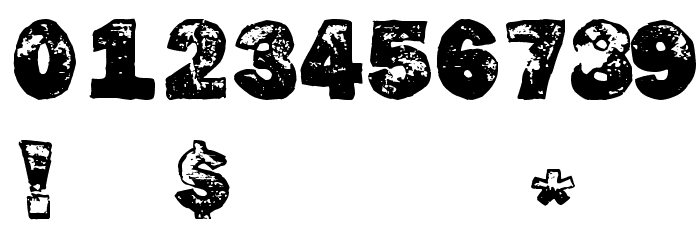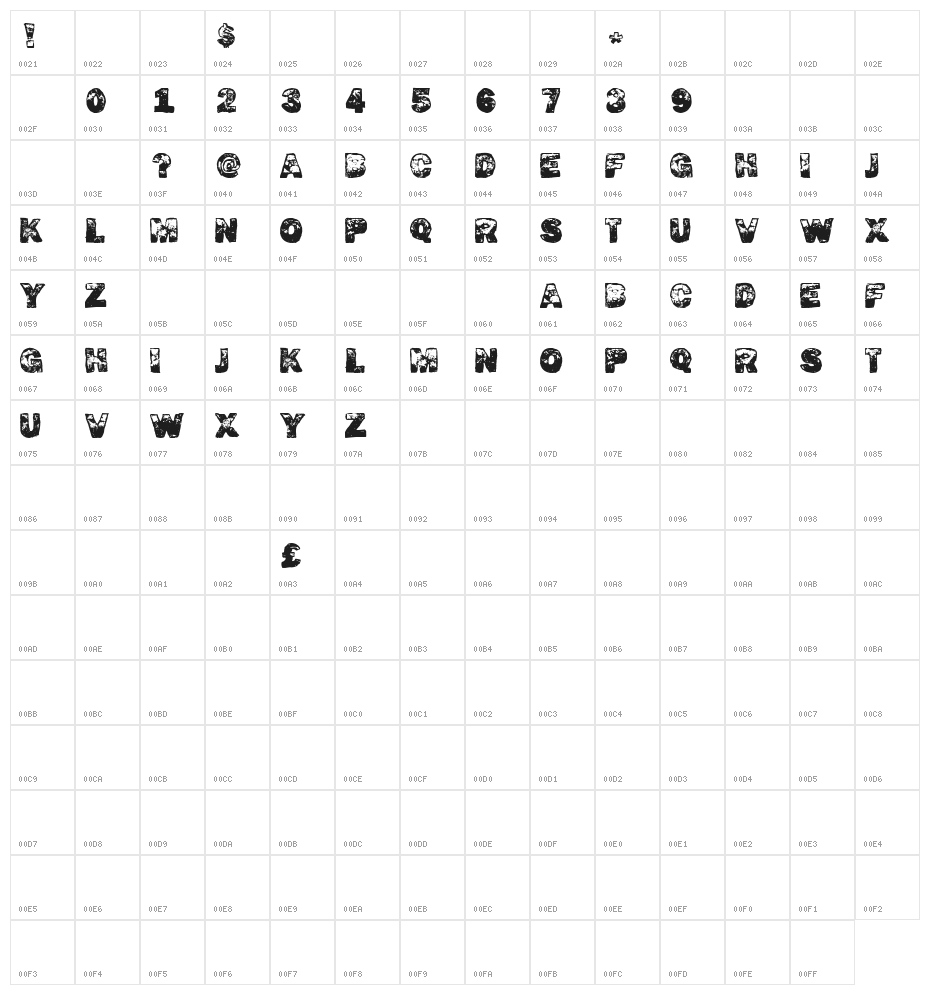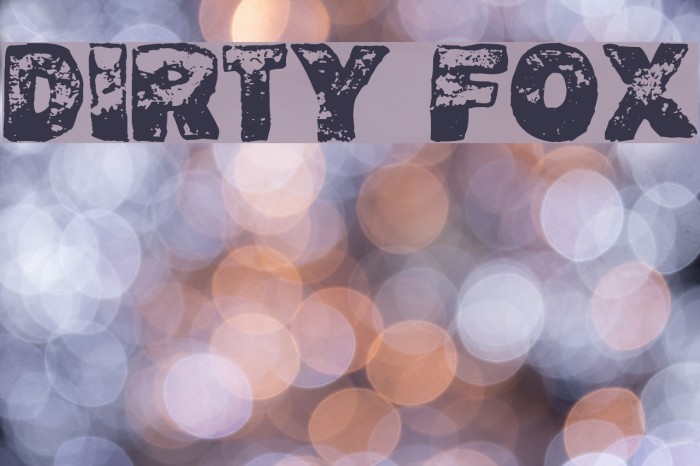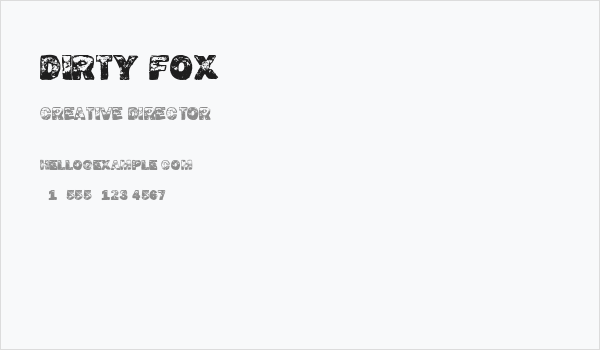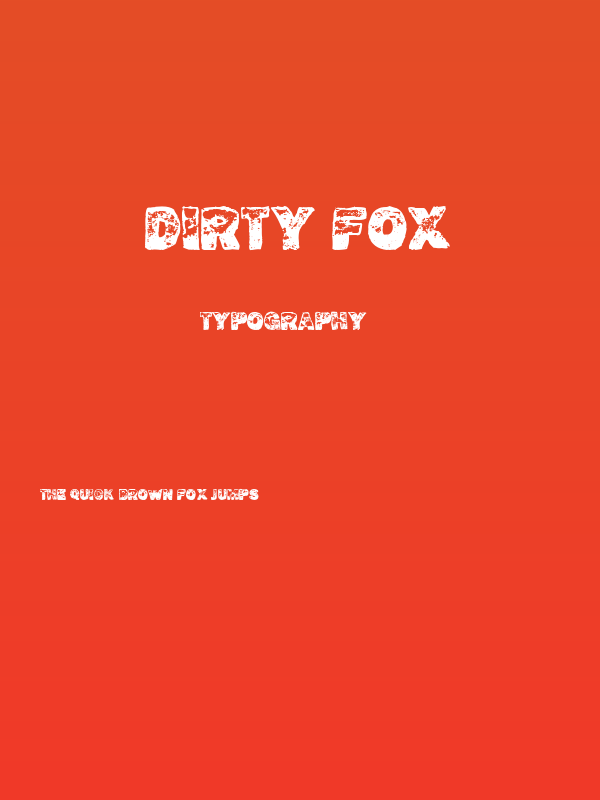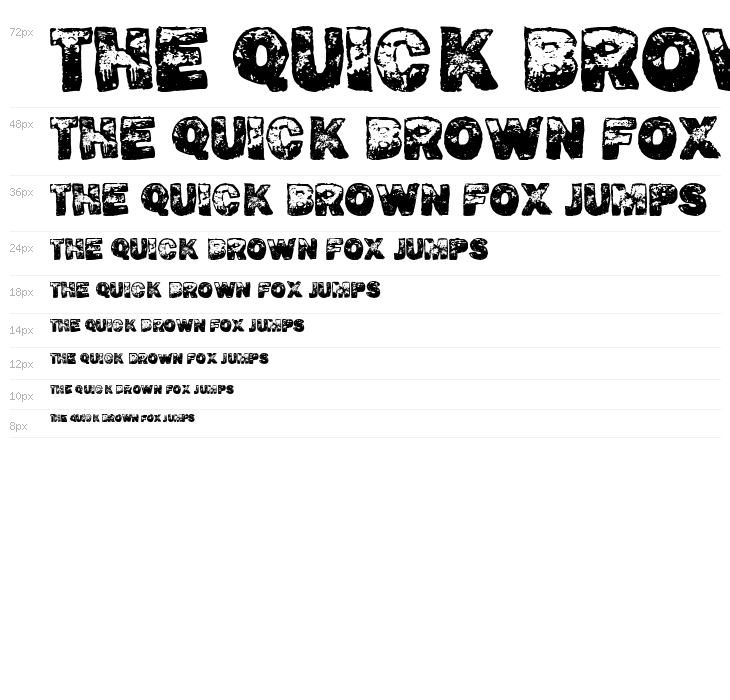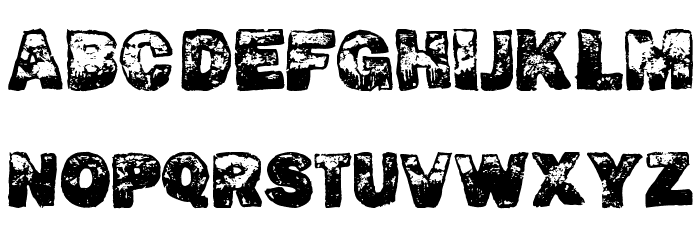
Dirty Fox Font
Dirty Fox Description
This font features a bold, distressed style with a rough, textured appearance that gives it a grunge or urban feel. The characters are heavily stylized with irregular edges and a worn-out look, making it ideal for designs that require a rugged, edgy aesthetic. The uppercase and lowercase letters maintain a consistent style, with numbers and special characters following the same distressed theme. This font is perfect for projects that aim to convey a sense of rebellion or nonconformity, such as music album covers, posters, or streetwear branding.
DIRTY-FOX UPPERCASE
DIRTY-FOX LOWERCASE
DIRTY-FOX OTHER CHARS
| Overall Style | Grunge, Urban, Edgy |
| Proposed Projects | Ideal for music album covers, edgy posters, streetwear branding, and rebellious-themed designs. |